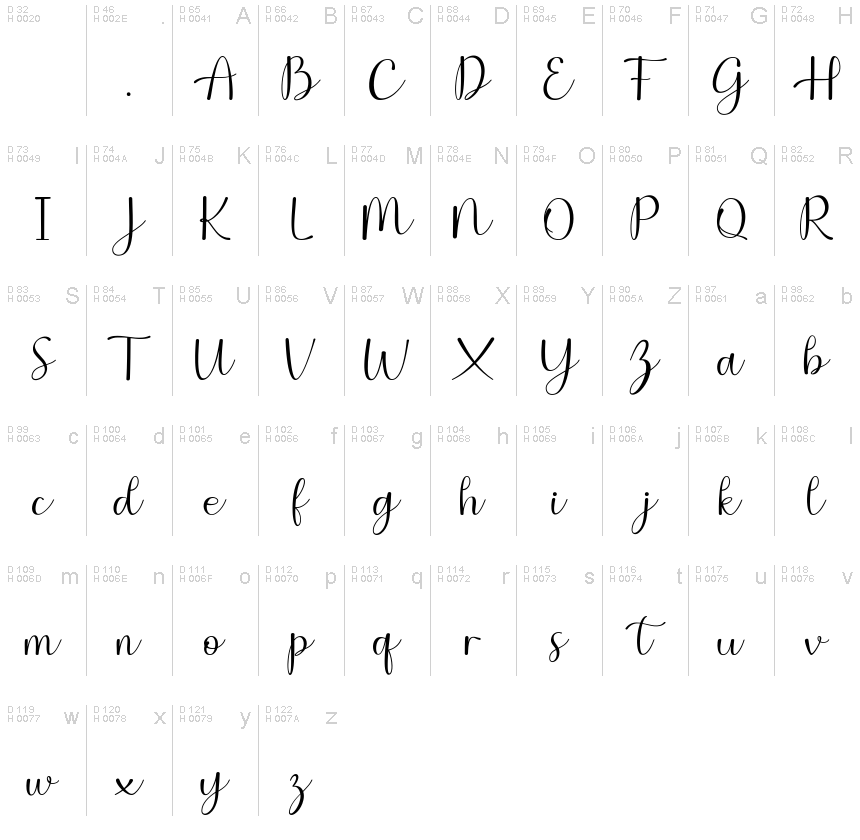
Hoshy font, crafted by Achmad Yani of Flawless and Co, embodies the charm of handwritten expression. Its graceful curves and lively strokes evoke a sense of warmth and personal touch, perfect for projects that demand an inviting aesthetic. The font’s playful variations-ranging from light structures to more dramatic flourishes-enhance its character, making each letter feel carefully penned.
Ideal for branding, social media graphics, invitations, or personal blogs, Hoshy effortlessly combines elegance with approachability. Whether used for heartfelt messages or creative headlines, this font invites creativity while retaining clarity and distinction. Let Hoshy infuse your designs with a distinctive personality that stands out in any context.